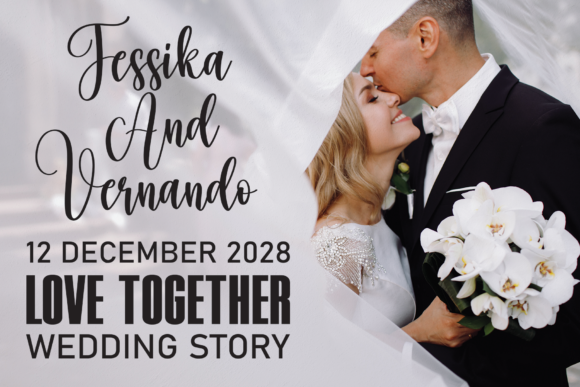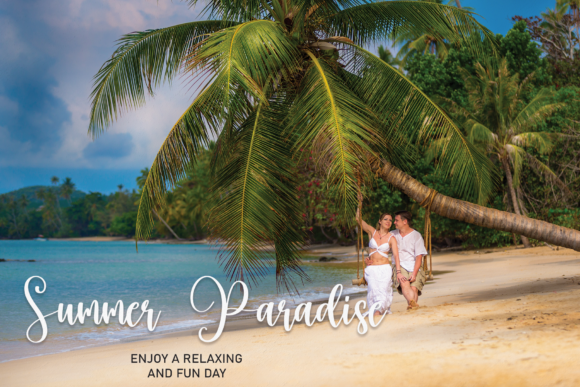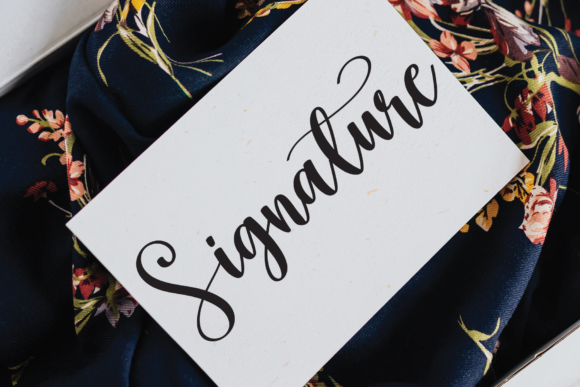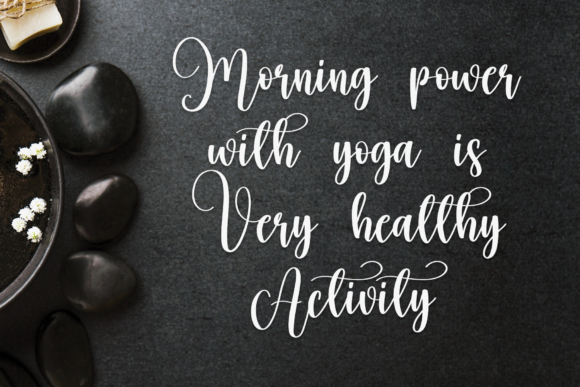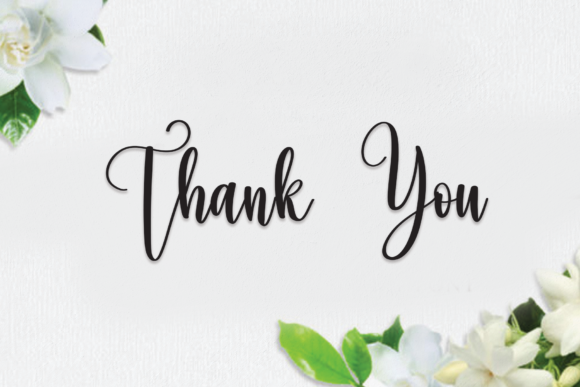
Introducing Family Font: The Perfect Handwritten Font for Your Creative Projects
Are you a designer, crafter, or DIY enthusiast looking for a romantic and stylish handwritten font to elevate your creative projects? Look no further than Family Font! This beautiful font is perfect for creating stunning wall displays, wedding invitations, social media post logos, advertisements, product packaging, product designs, labels, photography, watermarks, invitations, stationery, and more.
What is Family Font?
Family Font is a carefully crafted handwritten font that exudes a sense of warmth, love, and connection. Its elegant and flowing script is perfect for adding a personal touch to your designs, making them stand out from the crowd. Whether you’re a professional designer or a crafty DIY enthusiast, Family Font is an excellent choice for any project that requires a touch of personality and style.
Features of Family Font
- Romantic and Stylish: Family Font is a beautifully designed handwritten font that adds a touch of romance and style to any project.
- Versatile: Use Family Font for a wide range of creative projects, from wedding invitations and wall displays to social media post logos and product packaging.
- High-Quality: Family Font is a high-quality font that is designed to produce crisp and clear results, even at large sizes.
Uses of Family Font
Family Font is an incredibly versatile font that can be used for a wide range of creative projects. Here are some ideas to get you started:
- Wedding Invitations: Create beautiful and elegant wedding invitations that set the tone for your special day.
- Wall Displays: Design stunning wall displays that add a personal touch to your home or office.
- Social Media Post Logos: Create eye-catching social media post logos that help your brand stand out.
- Advertisements: Use Family Font to create effective and stylish advertisements that grab attention.
- Product Packaging: Add a touch of personality to your product packaging with Family Font.
- Product Designs: Create beautiful product designs that showcase your brand’s personality.
- Labels: Design elegant labels that add a touch of style to your products.
- Photography: Use Family Font to create beautiful watermarks that protect your photos.
- Stationery: Create stylish stationery that makes a great impression.
Why Choose Family Font?
With so many fonts available, why choose Family Font? Here are just a few reasons:
- Unique and Exclusive: Family Font is a unique and exclusive font that will help your designs stand out.
- High-Quality: Family Font is a high-quality font that is designed to produce exceptional results.
| Font Name | Family Font |
In conclusion, Family Font is a beautiful and versatile handwritten font that is perfect for designers, crafters, and DIY enthusiasts. With its romantic and stylish script, Family Font is ideal for creating stunning wall displays, wedding invitations, social media post logos, advertisements, product packaging, product designs, labels, photography, watermarks, invitations, stationery, and more. So why wait? Download Family Font today and start creating beautiful designs that showcase your personality and style!